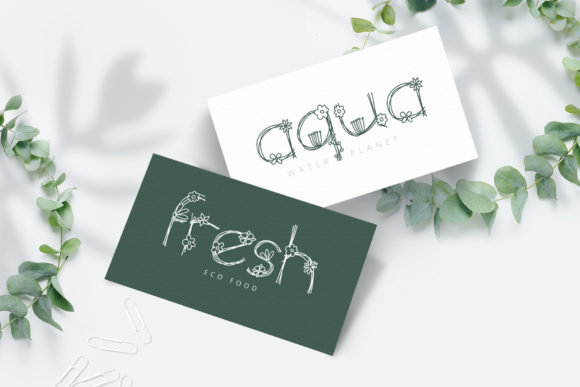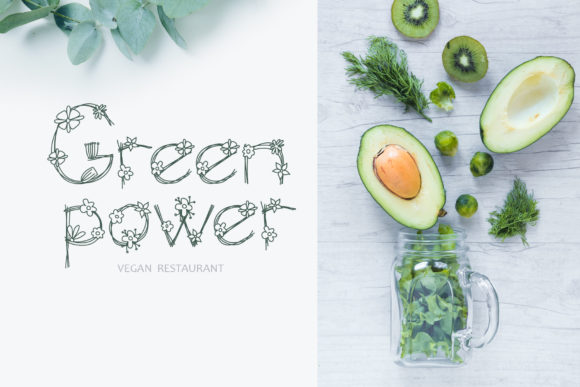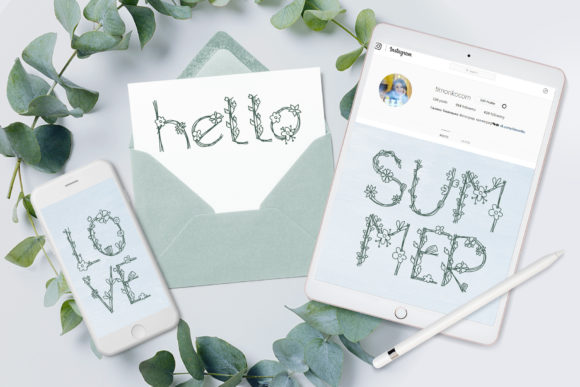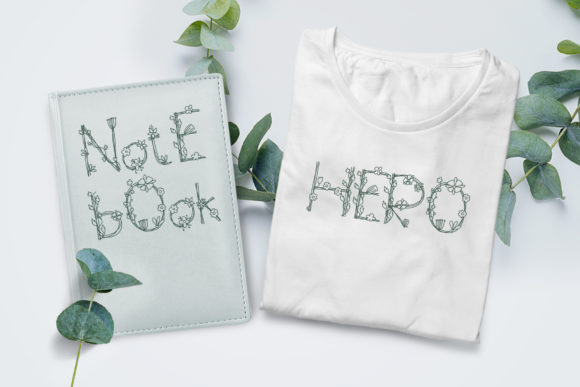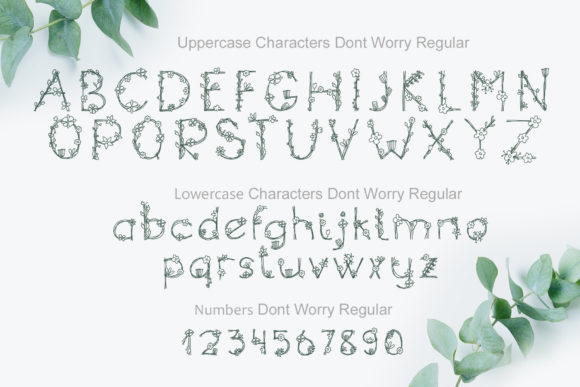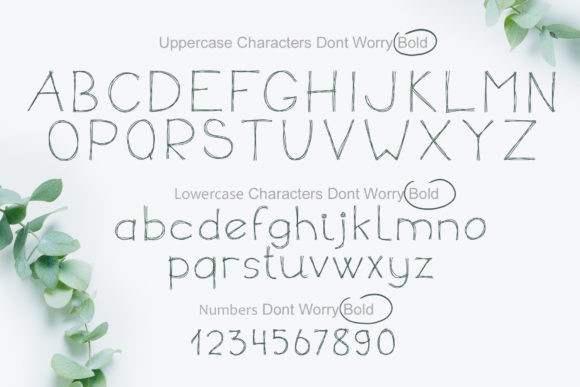
Dont Worry Font: The Perfect Choice for Romantic and Delicate Designs
Are you looking for a font that can add a touch of romance and elegance to your designs? Look no further than the Dont Worry font. This delicate and organic decorative font is perfect for a variety of projects, from love letters and wedding invitations to craft designs and more. In this article, we’ll take a closer look at the Dont Worry font and explore its features, benefits, and uses.
A Romantic and Lovely Looking Font
Dont Worry is a beautiful, hand-crafted font that exudes romance and sophistication. Its delicate and organic design makes it perfect for creating elegant and refined designs that will leave a lasting impression. Whether you’re designing a wedding invitation, a love letter, or a craft project, this font is sure to add a touch of whimsy and charm.
One of the standout features of the Dont Worry font is its unique and intricate design. The font features beautiful swashes and flourishes that add a touch of elegance and sophistication to any design. The font is also highly versatile, making it suitable for a wide range of projects and applications.
Features and Benefits of Dont Worry Font
So, what makes the Dont Worry font so special? Here are just a few of its key features and benefits:
- Delicate and Organic Design: The Dont Worry font features a delicate and organic design that is perfect for creating romantic and elegant designs.
- Unique Swashes and Flourishes: The font features beautiful swashes and flourishes that add a touch of elegance and sophistication to any design.
- Highly Versatile: The Dont Worry font is highly versatile, making it suitable for a wide range of projects and applications.
Uses for Dont Worry Font
So, what can you use the Dont Worry font for? The possibilities are endless! Here are just a few ideas to get you started:
- Wedding Invitations: The Dont Worry font is perfect for creating beautiful and elegant wedding invitations that will set the tone for your special day.
- Love Letters: Add a touch of romance and whimsy to your love letters with the Dont Worry font.
- Craft Designs: The font is perfect for a variety of craft designs, from scrapbooking and card making to DIY projects and more.
- Stationery and Gift Tags: Use the Dont Worry font to create beautiful and elegant stationery and gift tags that will add a personal touch to any gift.
Tips for Using Dont Worry Font
Here are a few tips for using the Dont Worry font:
- Use it Sparingly: While the Dont Worry font is beautiful, it can be overwhelming if used too much. Use it sparingly to add a touch of elegance and sophistication to your designs.
- Experiment with Different Sizes: Experiment with different sizes and styles to find the perfect look for your design.
- Pair it with Other Fonts: The Dont Worry font pairs well with other fonts, so don’t be afraid to experiment with different combinations.
| Font Name | Dont Worry Font |
| Author | Happy Letters |
In conclusion, the Dont Worry font is a beautiful and elegant decorative font that is perfect for a variety of projects. Its delicate and organic design makes it perfect for creating romantic and refined designs that will leave a lasting impression. Whether you’re a designer, crafter, or DIY enthusiast, this font is sure to become a favorite in your collection.